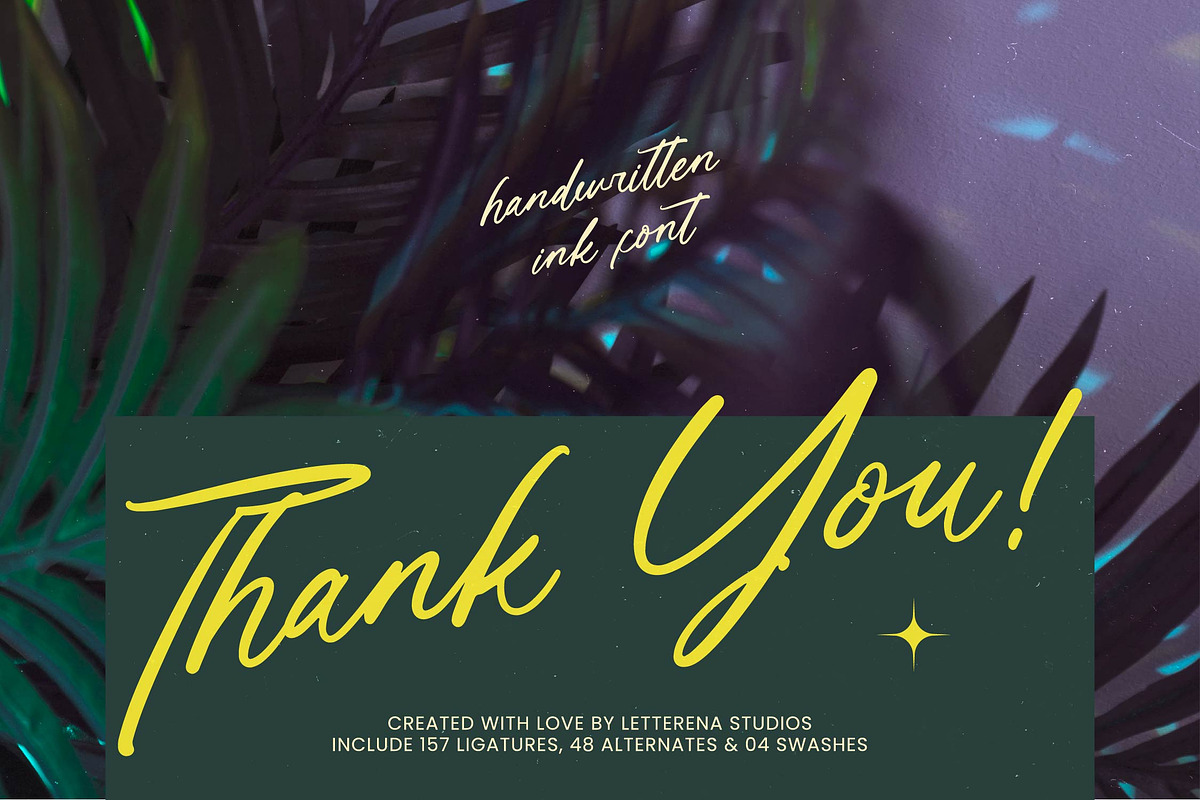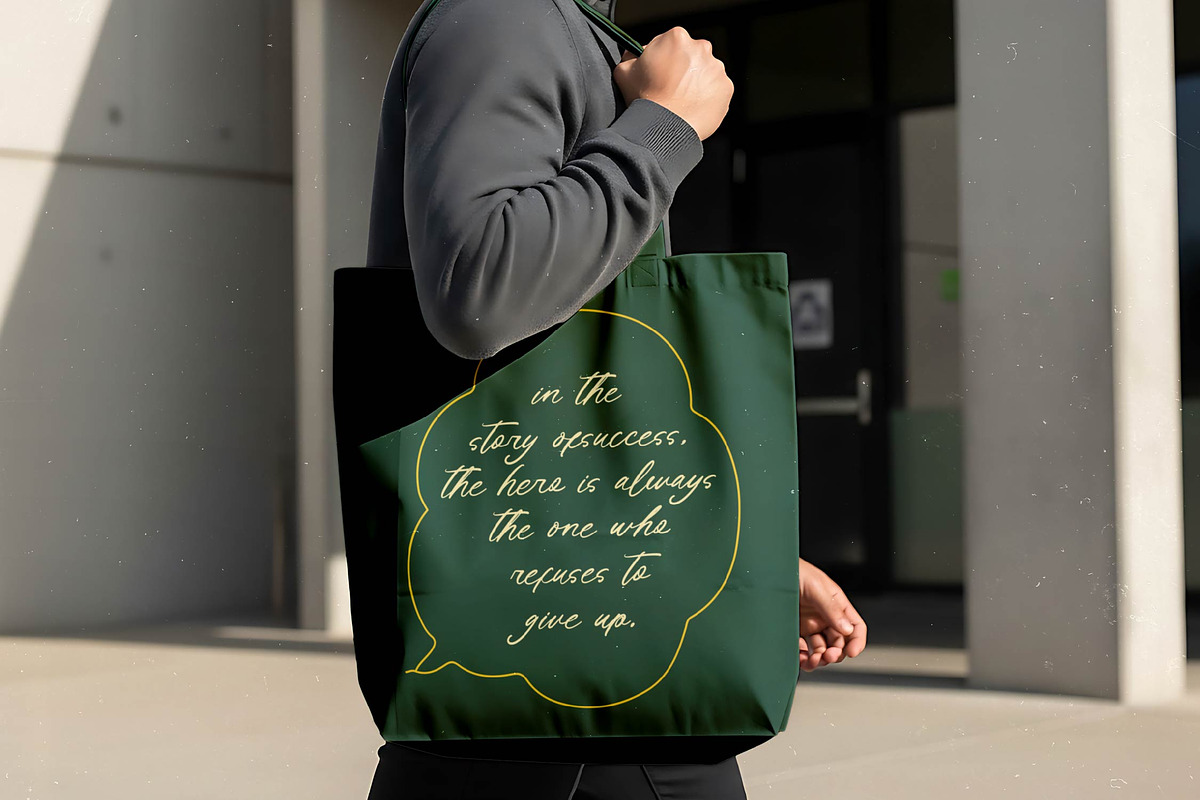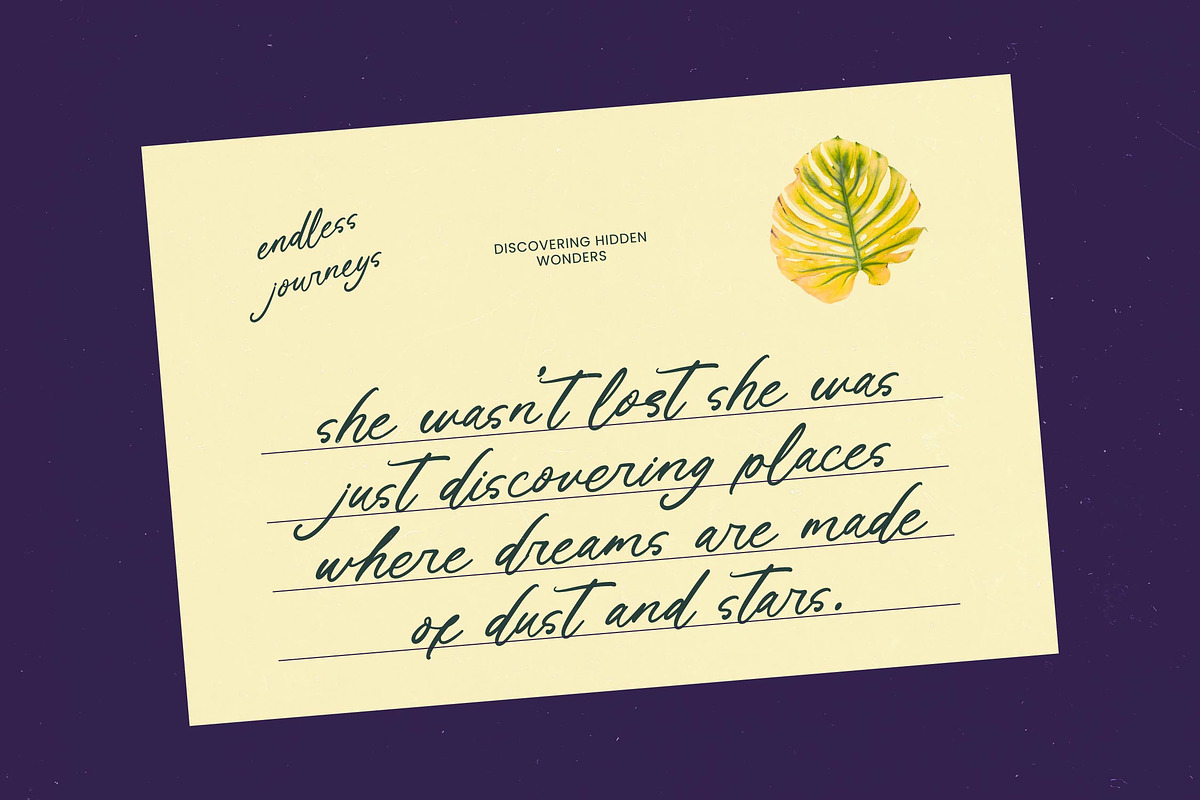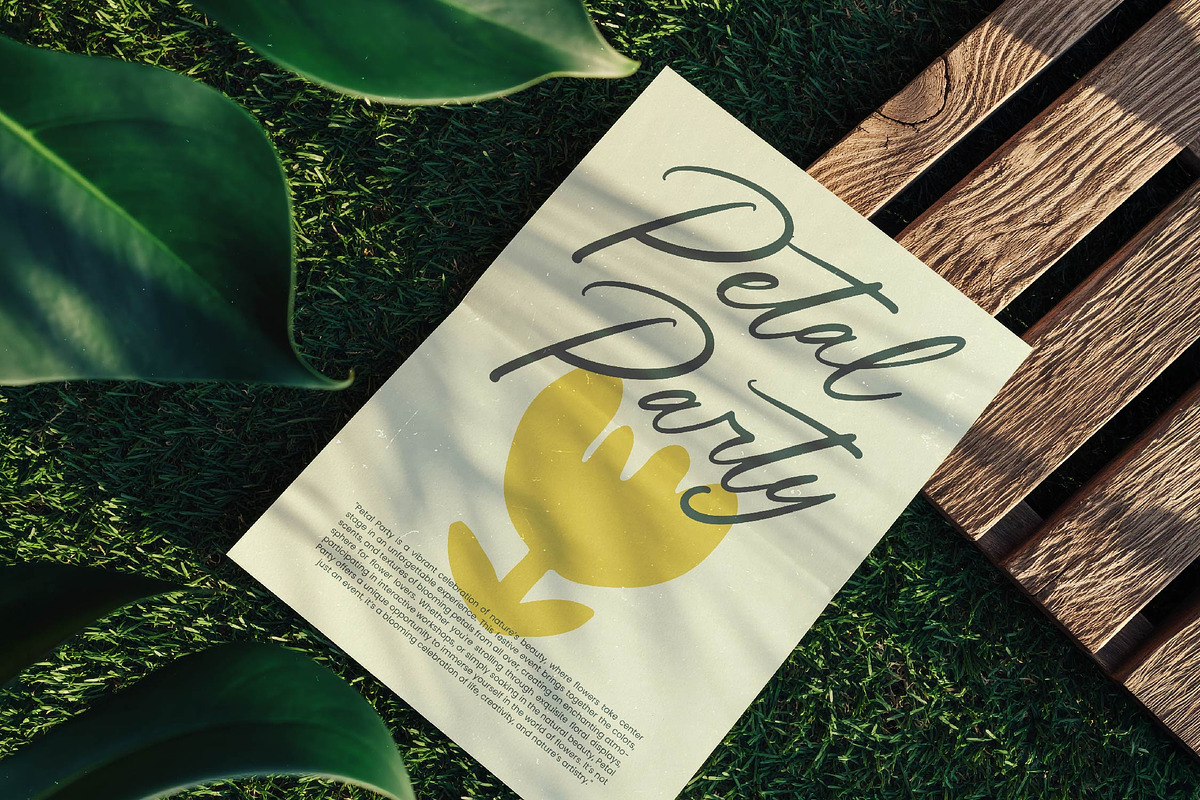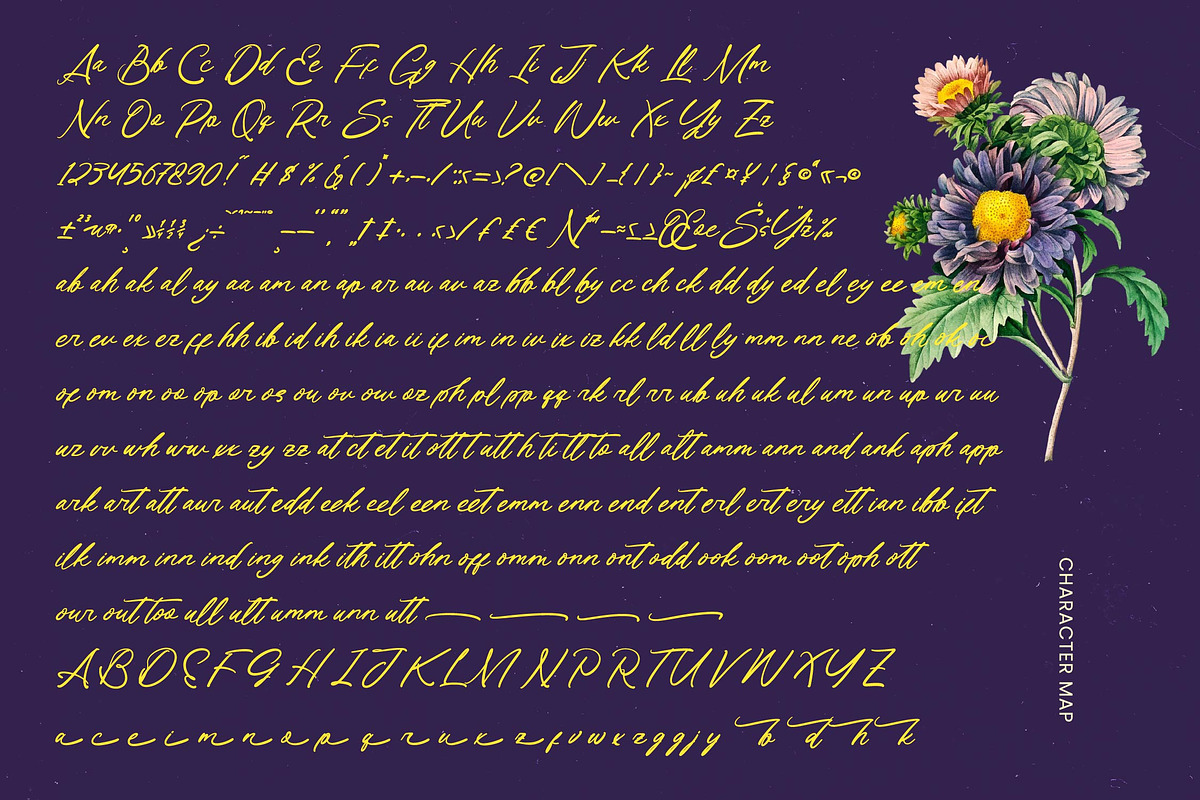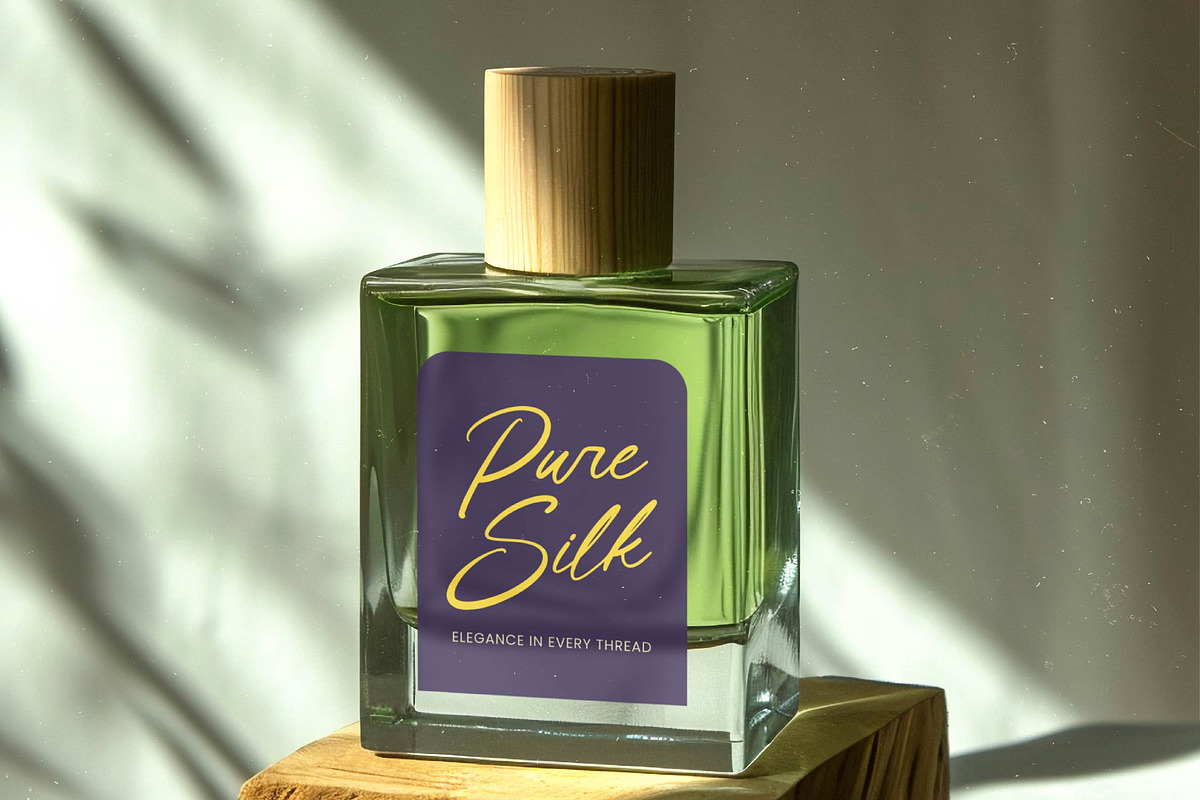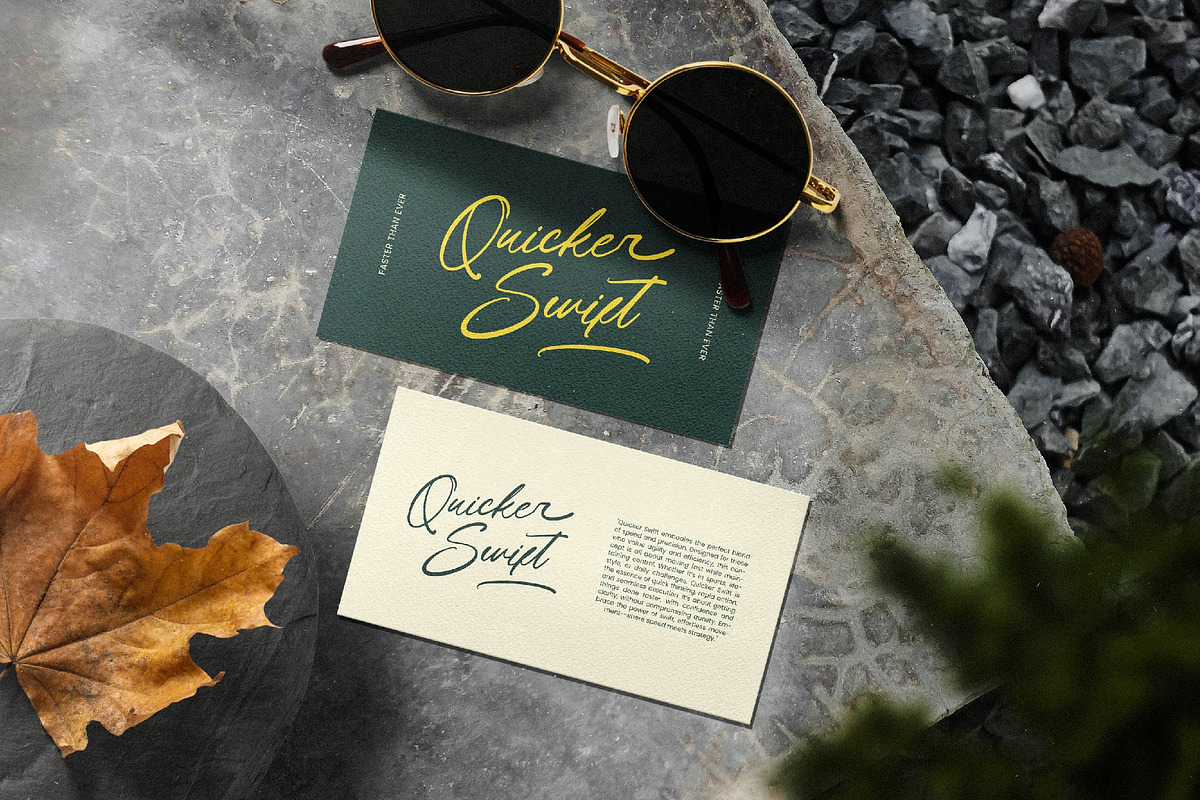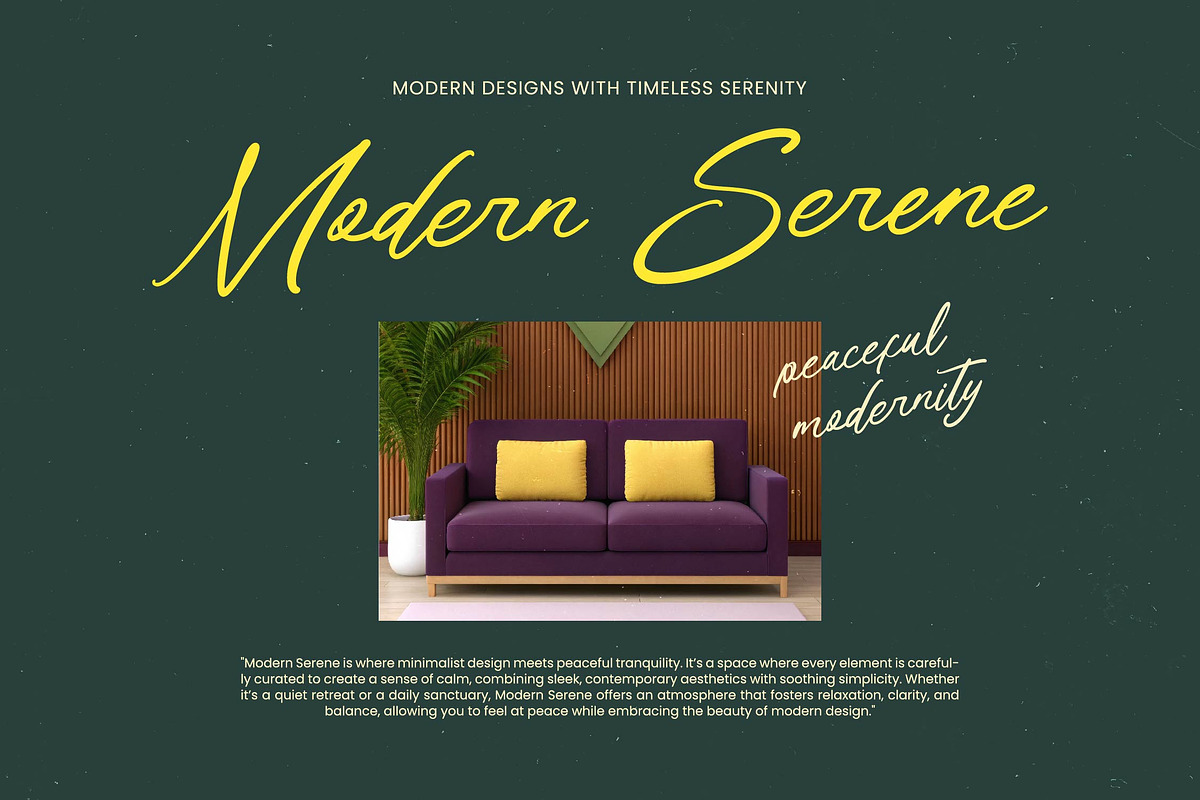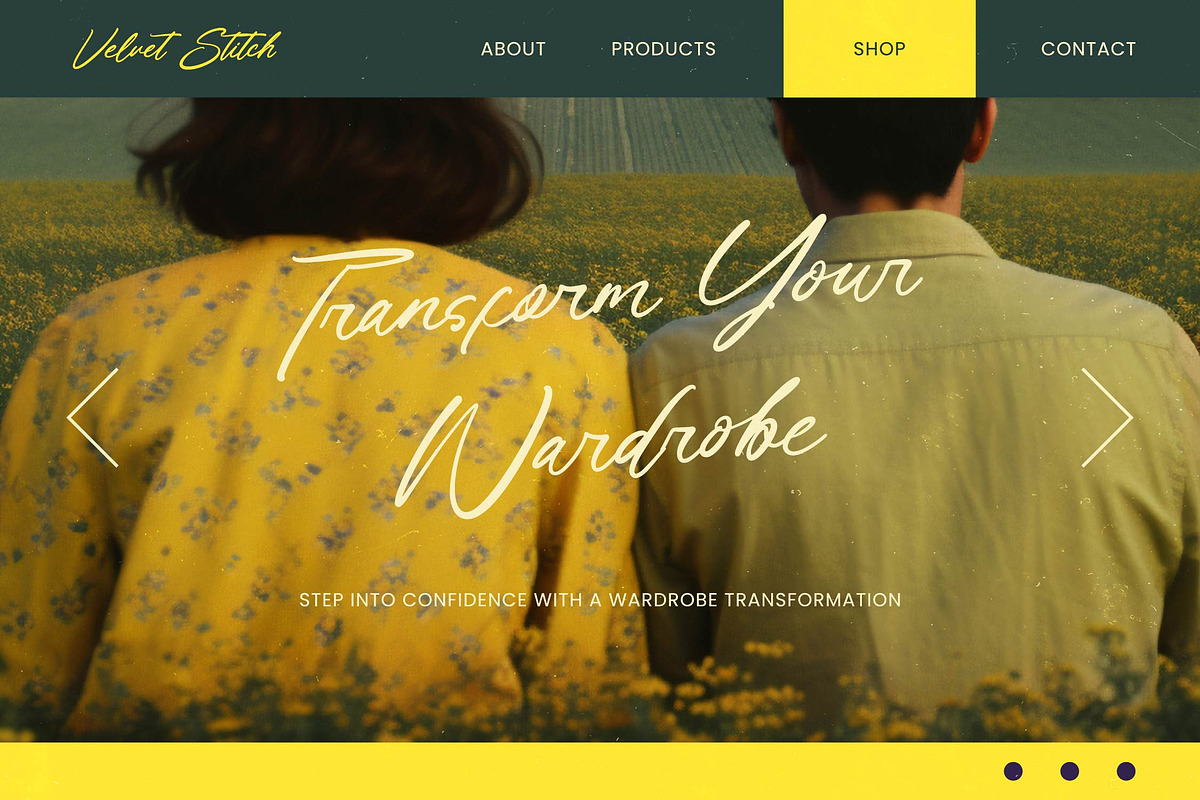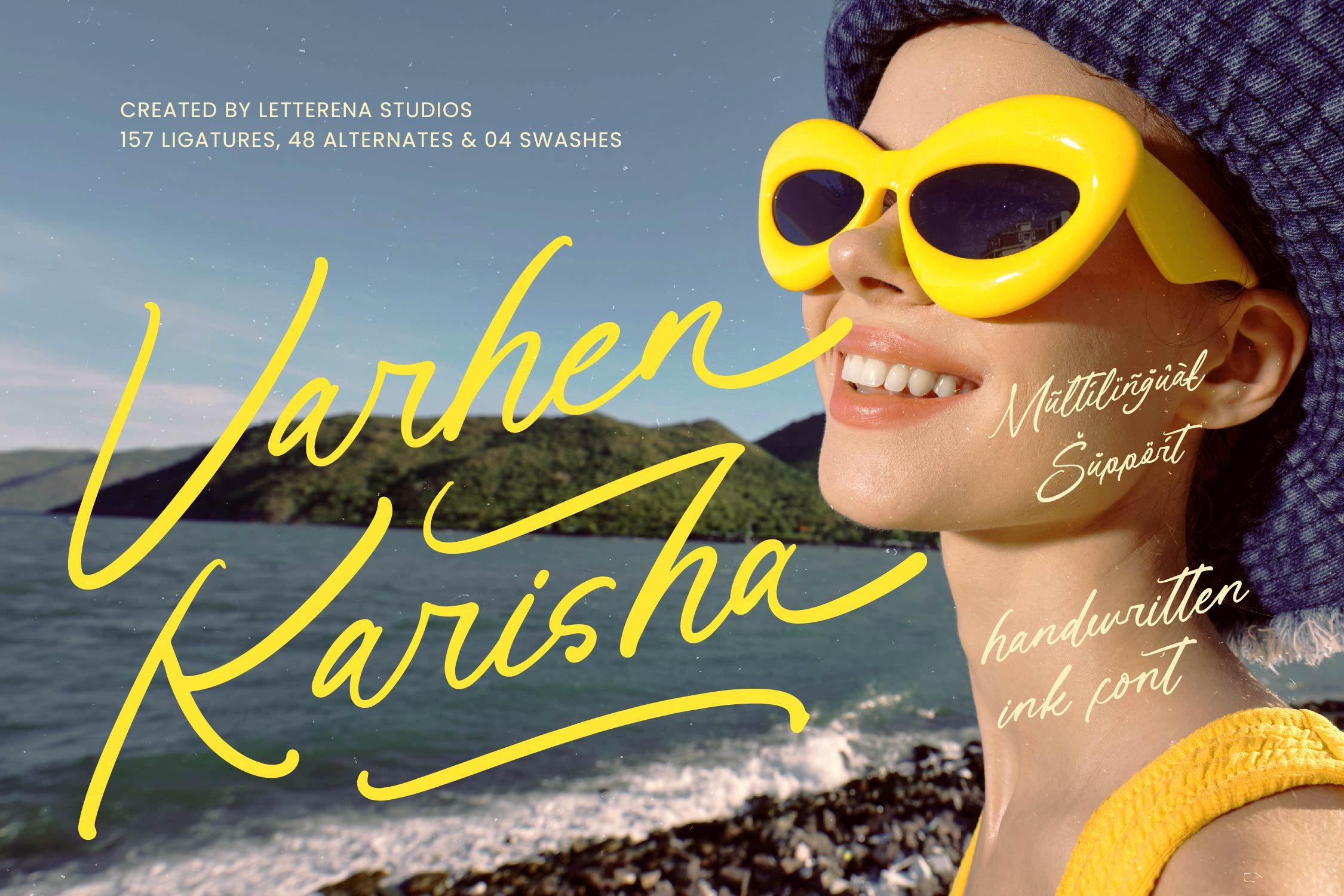
Varhen Karisha Handwritten Ink Font
Varhen Karisha - Handwritten Ink Font , Elevate your design projects with the expressive elegance of Varhen Karisha - Handwritten Ink Font. This sophisticated script captures the raw beauty of natural ink strokes, offering a dynamic flow that feels both personal and professional. With its organic texture and refined calligraphy, it is designed to inject a sense of authentic craftsmanship into every creative composition.
Experience unparalleled creative freedom through an extensive collection of 157 ligatures and 48 alternates built into Varhen Karisha - Handwritten Ink Font. These features allow designers to customize letterforms for a truly bespoke look, while the four included swashes add a finishing touch of artistic flair. Whether you are aiming for a minimalist aesthetic or a bold statement, this font provides the creative flexibility needed to stand out in a competitive marketplace.
Expand your brand’s reach with a typeface engineered for the modern global economy. With its extensive multilingual support, Varhen Karisha - Handwritten Ink Font adapts seamlessly across global markets, making it incredibly versatile for international projects. This robust character set ensures that your message remains clear and impactful, regardless of the language, maintaining a consistent brand identity across various geographical borders.
Unlock the full potential of your visual identity by utilizing Varhen Karisha - Handwritten Ink Font for luxury branding, high-end packaging, and editorial design. It is perfect for social media graphics, wedding stationery, and lifestyle photography overlays where a touch of human connection is essential. By choosing Varhen Karisha - Handwritten Ink Font, you are investing in a premium typographic tool that effortlessly bridges the gap between contemporary style and timeless elegance.
Numerals
Punctuations (OpenType Standard)
Accents (Multilingual Characters)
Ligatures and Alternative Style Stylistic Set